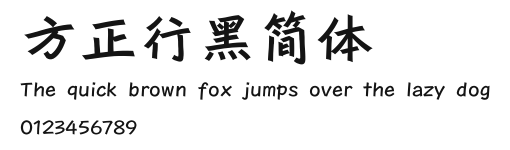
About 方正行黑简体.ttf
方正行黑简体.ttf is a modern, elegant sans-serif font designed for ultimate readability and visual harmony. Perfect for branding, headlines, web design, and print materials.